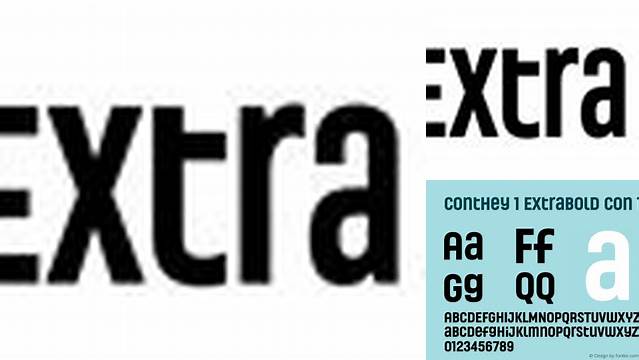
Conthey Extra Bold Font: Download & Design Guide
Hey guys! Ever stumbled upon a font that just screams attention? Something bold, eye-catching, and ready to make a statement? Well, if you're looking for exactly that, then let me introduce you to the Conthey Extra Bold Free Font! This font is a design powerhouse, perfect for everything from headlines and logos to posters and website elements. In this article, we're going to dive deep into everything you need to know about the Conthey Extra Bold Free Font, including where to download it, how to use it effectively, and some awesome design tips to get your creative juices flowing. We'll explore its unique characteristics, its ideal applications, and even some cool alternatives if you're feeling adventurous. So, buckle up, because we're about to embark on a font-tastic journey!
Conthey Extra Bold Font: A Closer Look at its Design & Characteristics
Alright, let's get down to the nitty-gritty. What exactly makes the Conthey Extra Bold Free Font so special? Well, first off, the name says it all: it's extra bold! This means it's designed to grab your audience's attention immediately. Its thick, sturdy letterforms provide a strong visual presence, making it ideal for headlines, titles, and any text that needs to stand out. But it's not just about the boldness. The Conthey Extra Bold Free Font often features a clean, modern aesthetic. While specific design details can vary depending on the version you find, you can typically expect a font with crisp lines, well-defined curves, and a sense of contemporary style. This combination of boldness and modernity gives the font incredible versatility. It can be used effectively in a variety of contexts, from tech startups to fashion brands. Imagine the impact of your brand message in strong bold text! Think about how your branding will stand out amongst your competitors. The font's legibility, despite its boldness, is also a key feature. A good extra-bold font ensures that even when used in large sizes, the letters remain easily readable. This is crucial for grabbing attention without sacrificing clarity. This is a crucial point to remember! The best fonts out there balance form and function, and the Conthey Extra Bold Free Font typically excels in this regard. Further, most Conthey Extra Bold Free Font options are designed with a degree of versatility. They are often created to complement other fonts, allowing you to create more complex and interesting designs. This means you can pair it with a more delicate font for body text or use it to accent a modern sans-serif for a sleek, impactful design. The characteristics described above make the Conthey Extra Bold Free Font an amazing resource for designers.
Exploring Conthey Extra Bold's Aesthetics and Style
Let's delve a bit deeper into the visual style that defines the Conthey Extra Bold Free Font. This font family is generally designed to be robust and impactful. It commands attention through its pronounced strokes and assertive design. It often exhibits a geometric or semi-geometric structure, giving it a modern edge. The letterforms are usually constructed with clean lines and minimal embellishments, contributing to its clarity and readability even at larger sizes. The boldness of this font makes it a perfect choice for headlines, titles, and any text where impact is key. The style frequently balances its strength with a touch of sophistication. This versatility ensures that the Conthey Extra Bold Free Font can be utilized effectively across a variety of design projects, from websites and branding materials to posters and social media graphics. It is a valuable asset for designers who want to create designs that are modern, striking, and easy to read. Its distinct aesthetic appeal is further enhanced by the fact that it has a consistent style. This means that each character, from the letters to the numbers and symbols, adheres to the same design principles, resulting in a cohesive and professional look. This consistency helps to create a sense of unity within your designs, making them more visually appealing and easier for viewers to understand. Consider the impact of this font on any website that uses it! This is why the Conthey Extra Bold Free Font is so highly regarded! The bold nature of this font provides a great impact! The stylistic choices made by the designers behind the Conthey Extra Bold Free Font contribute to its widespread use and popularity.